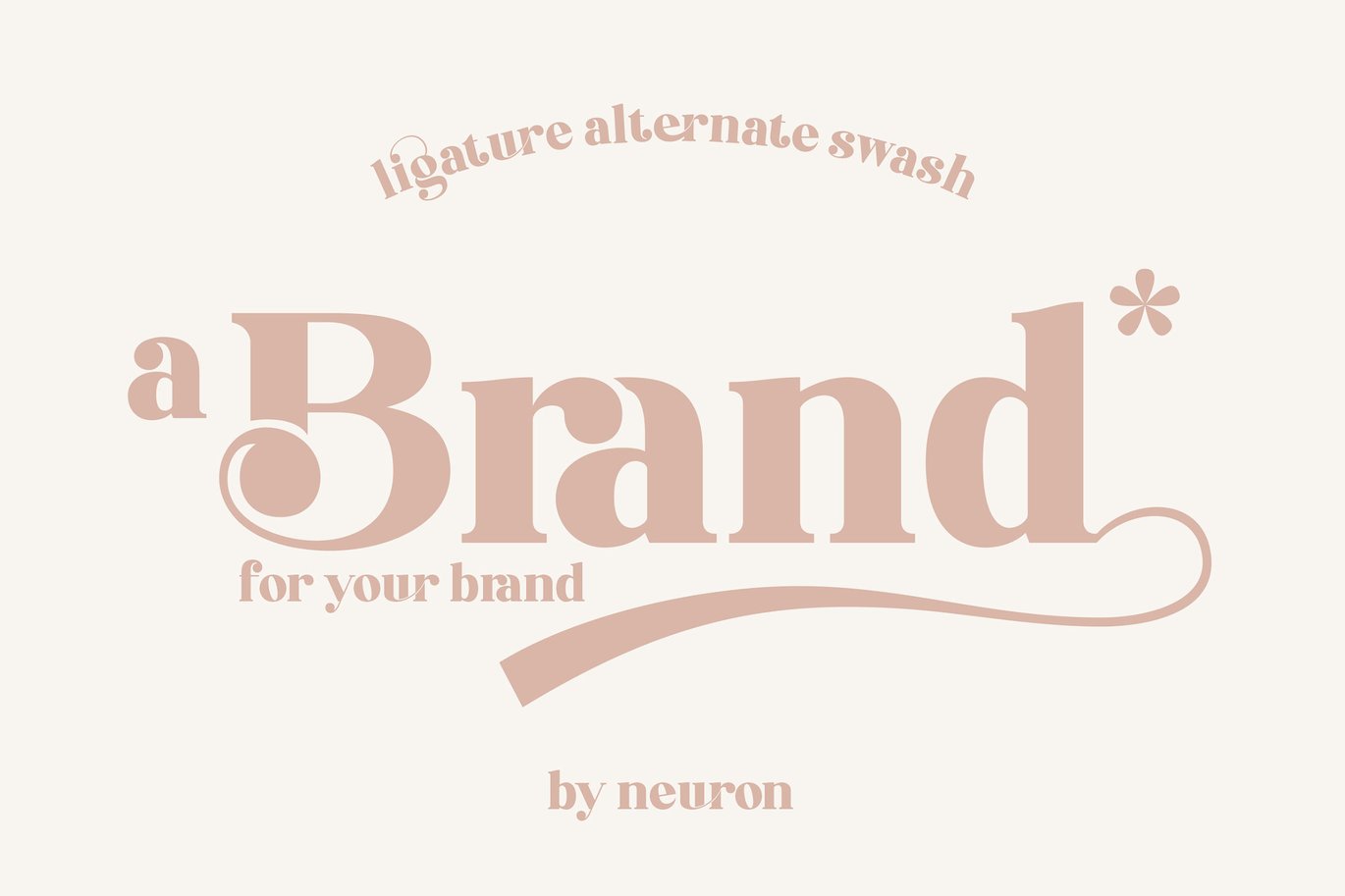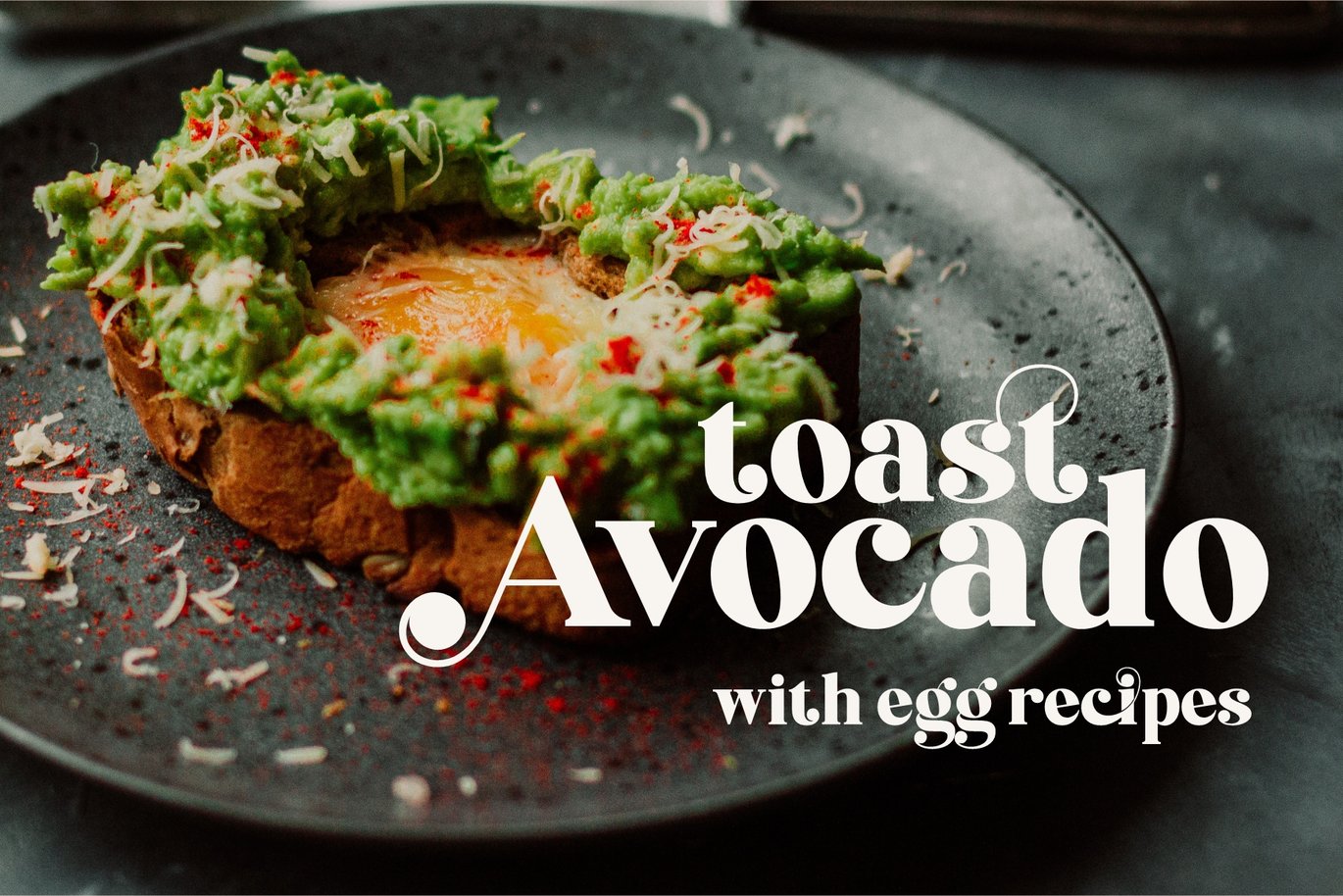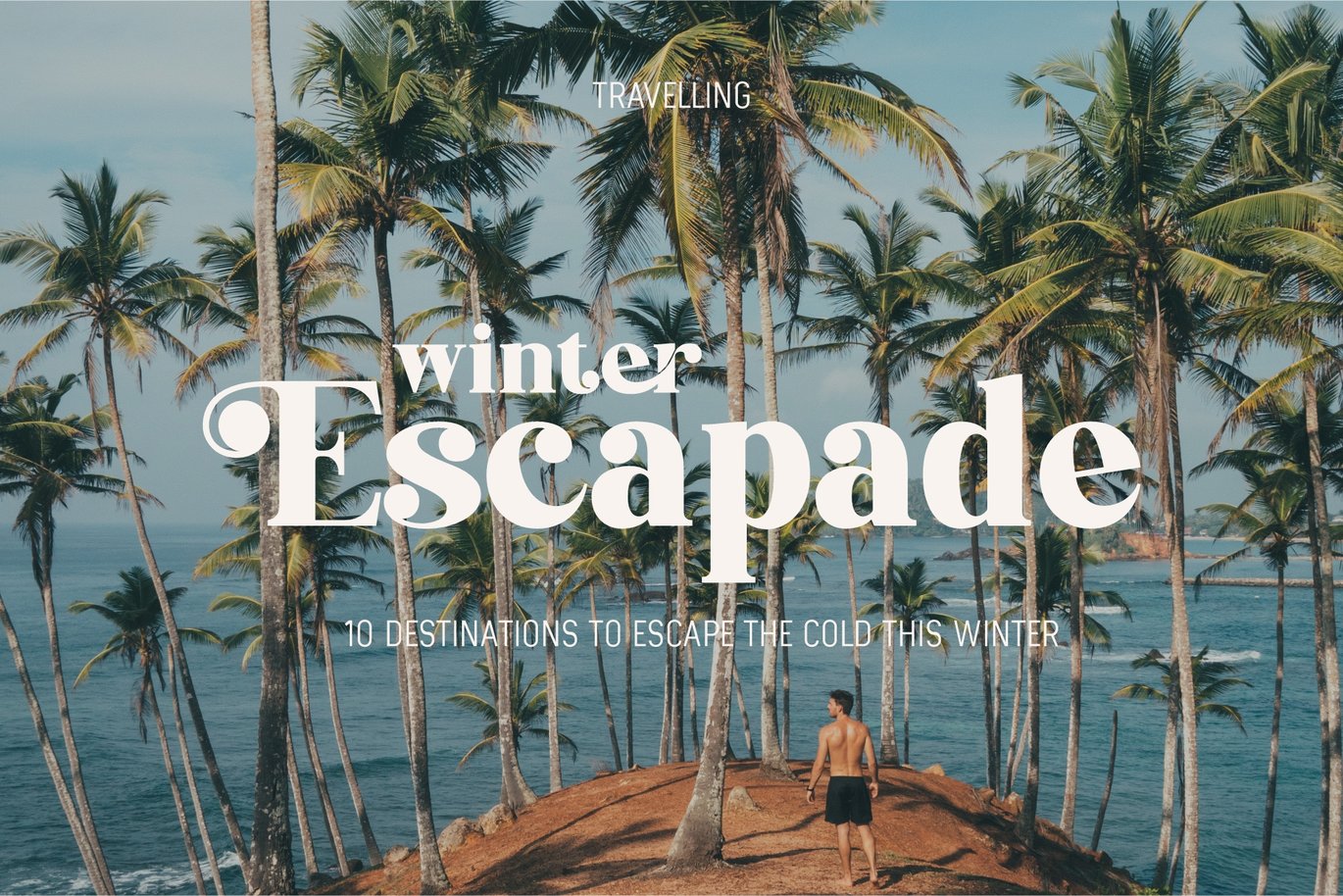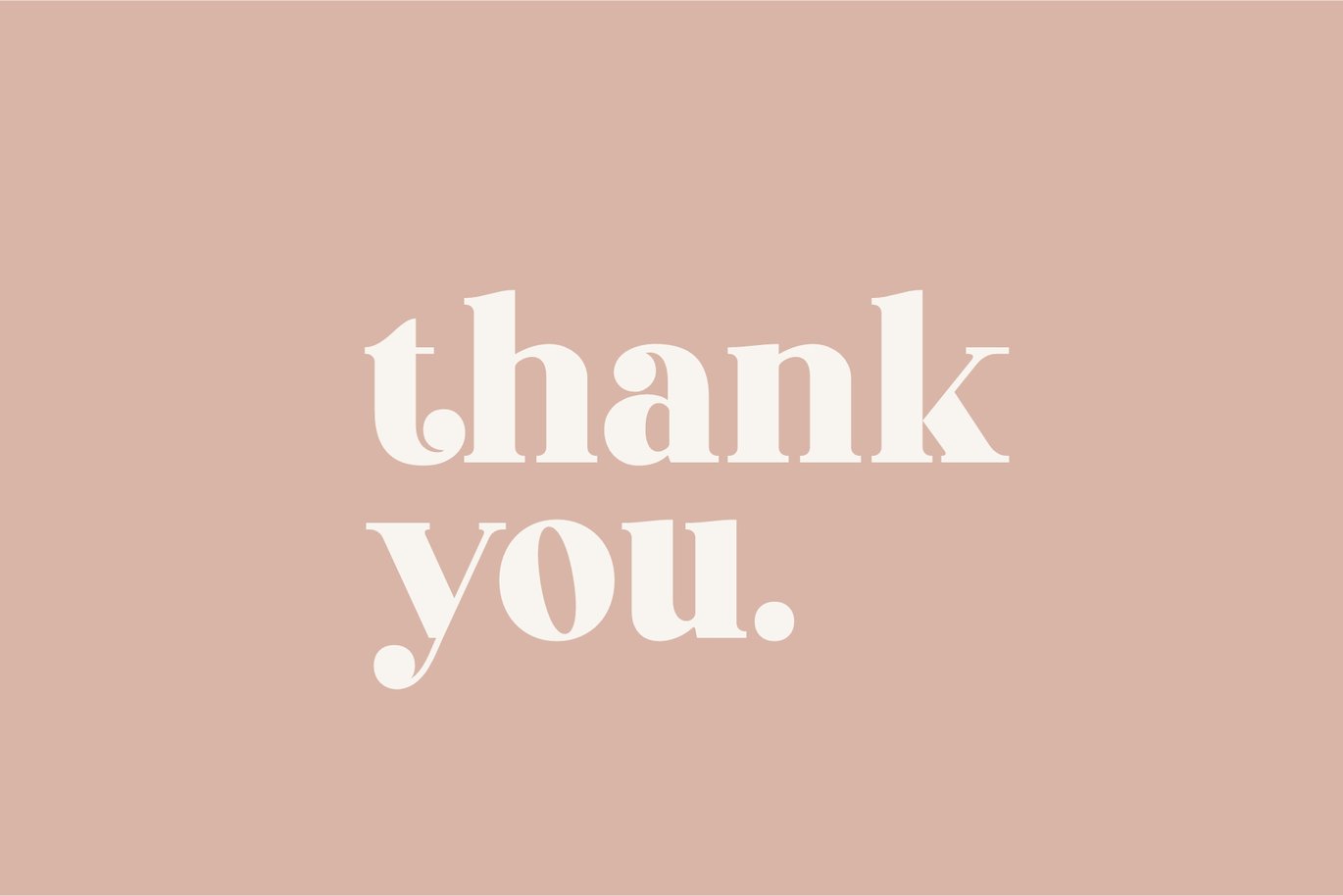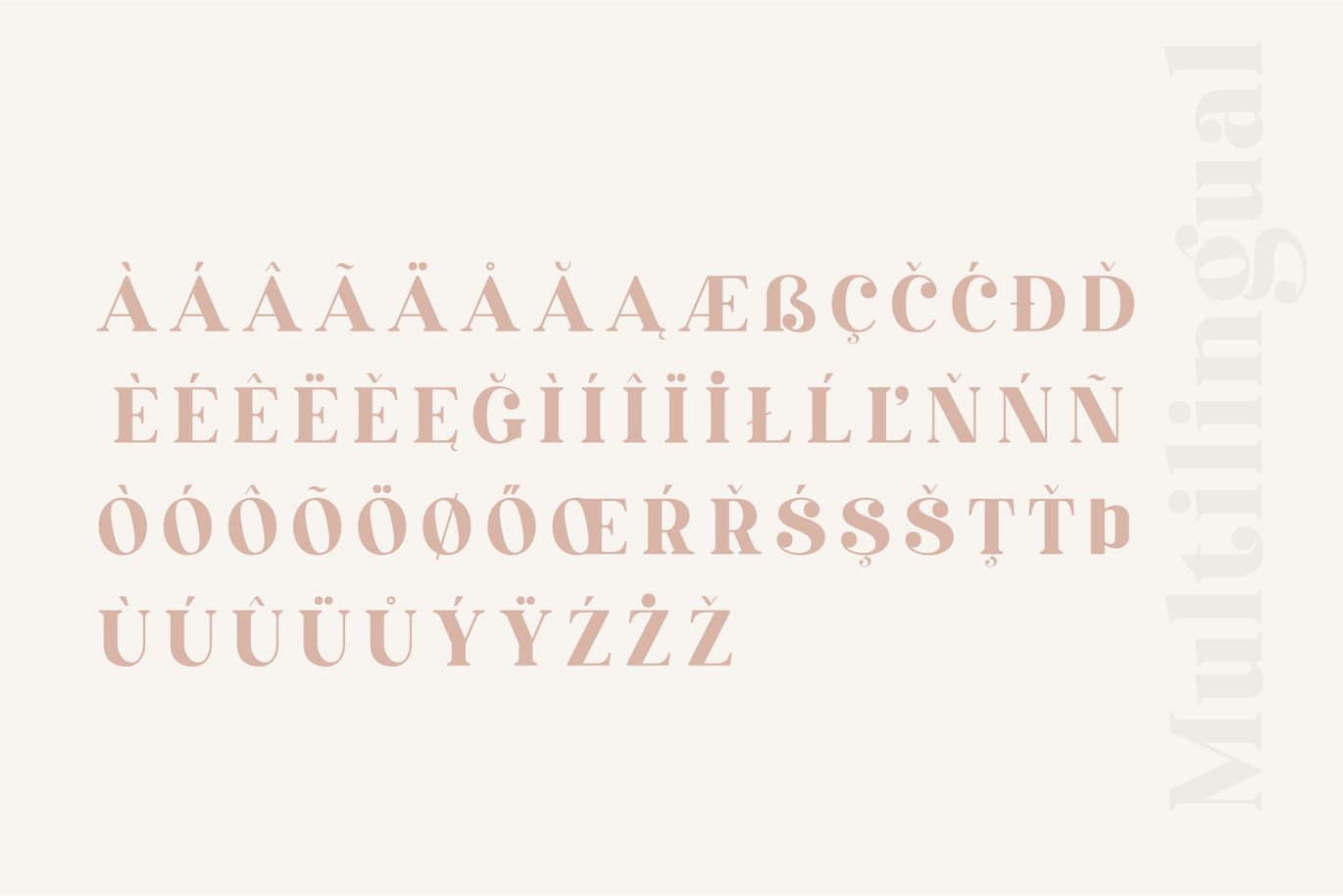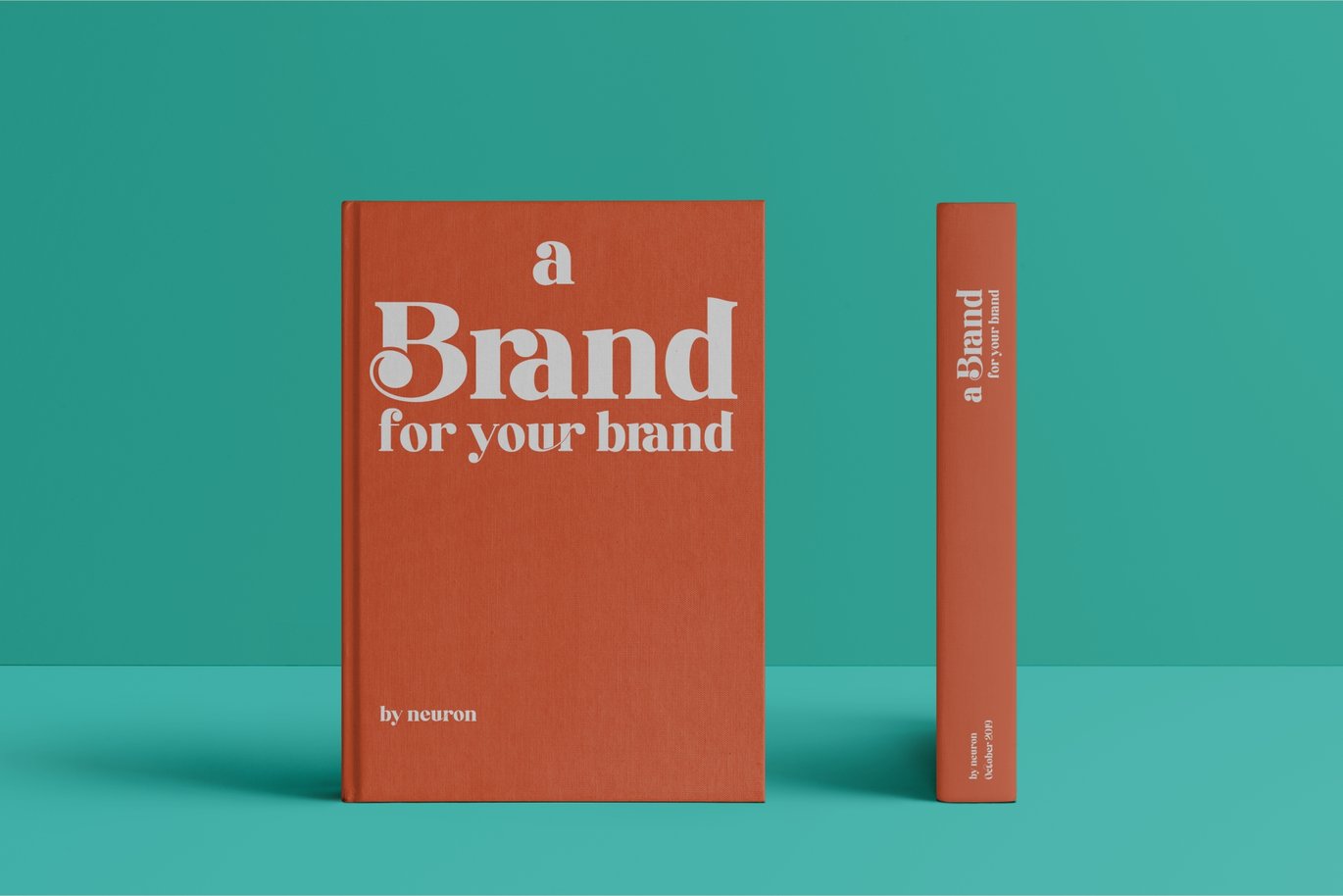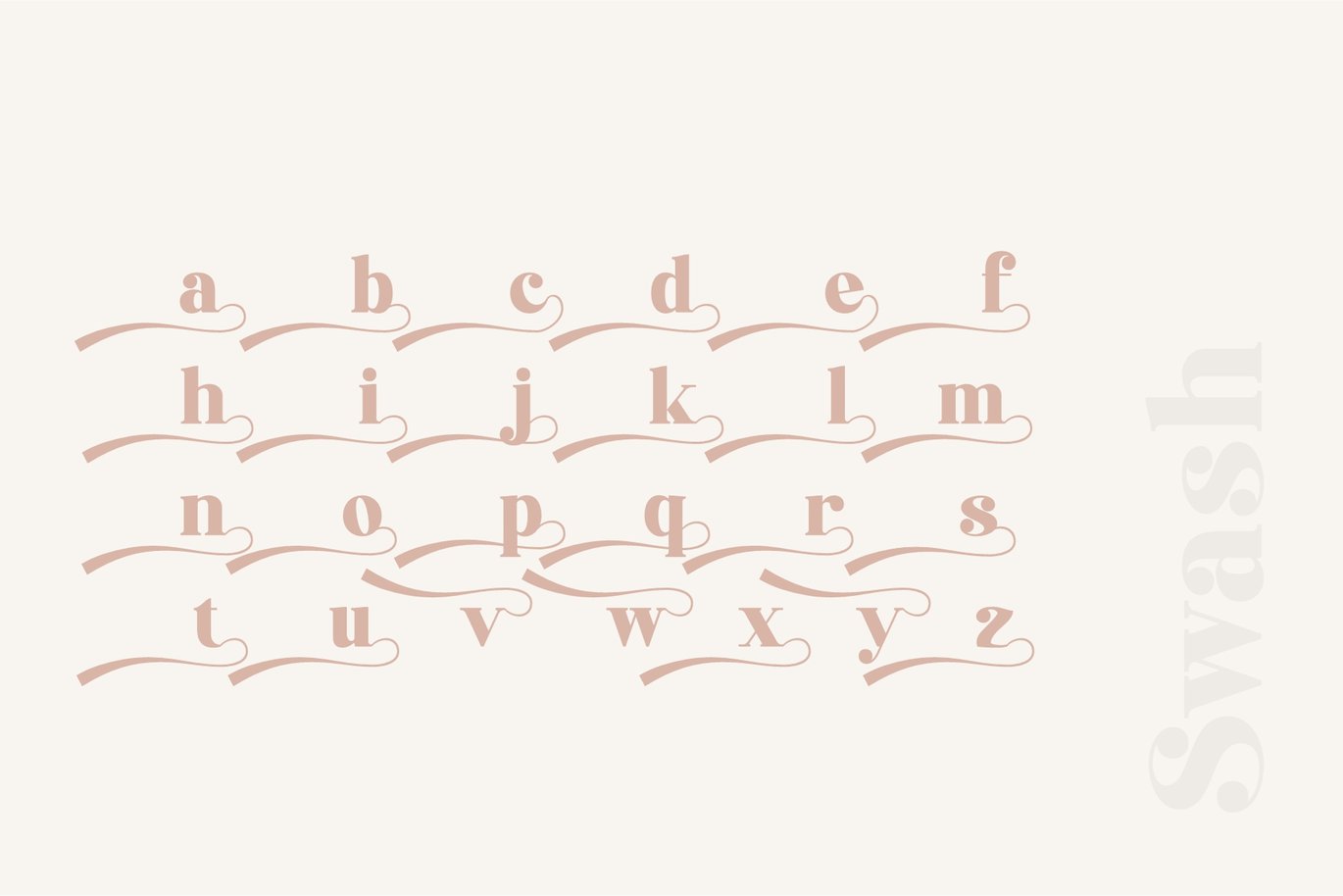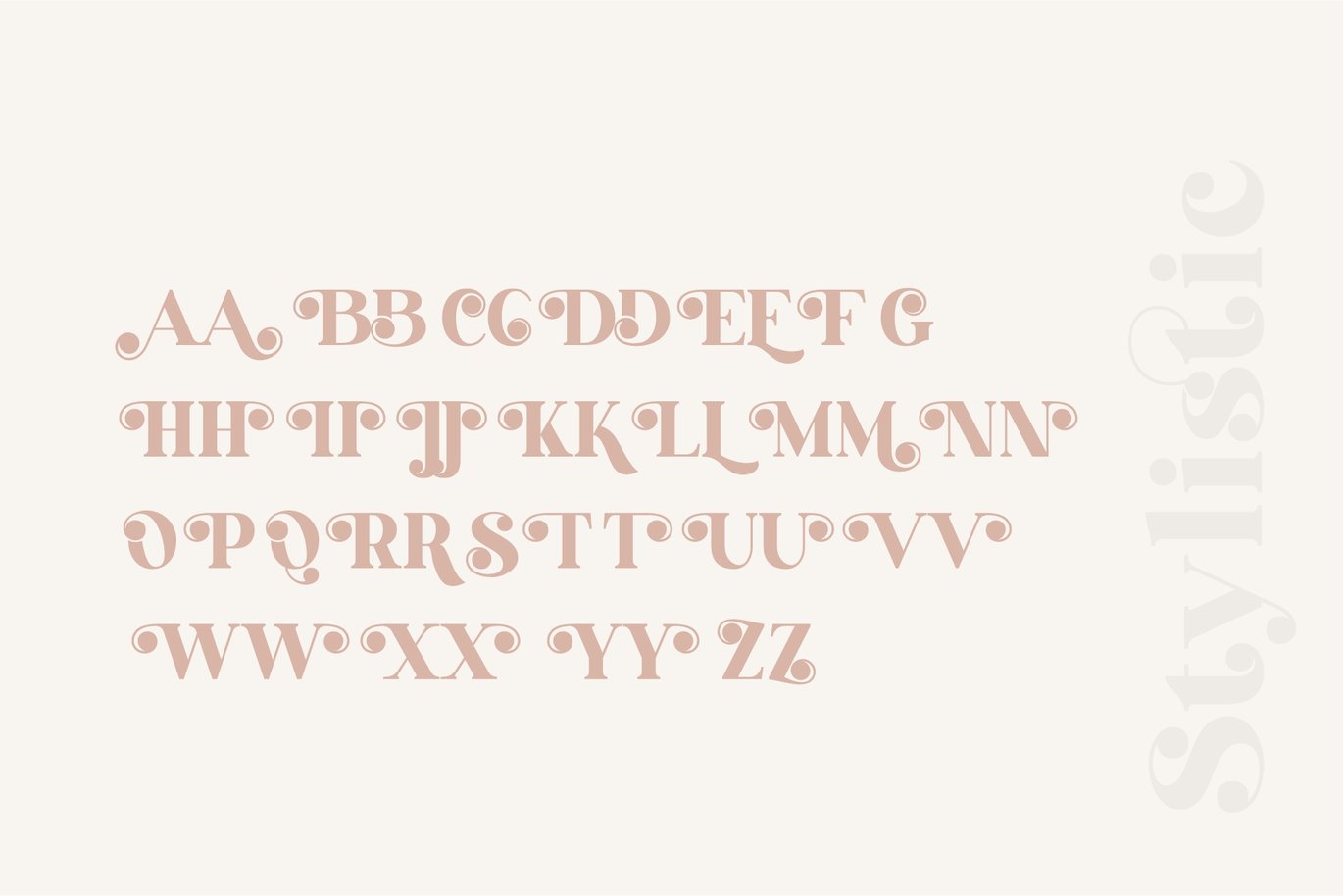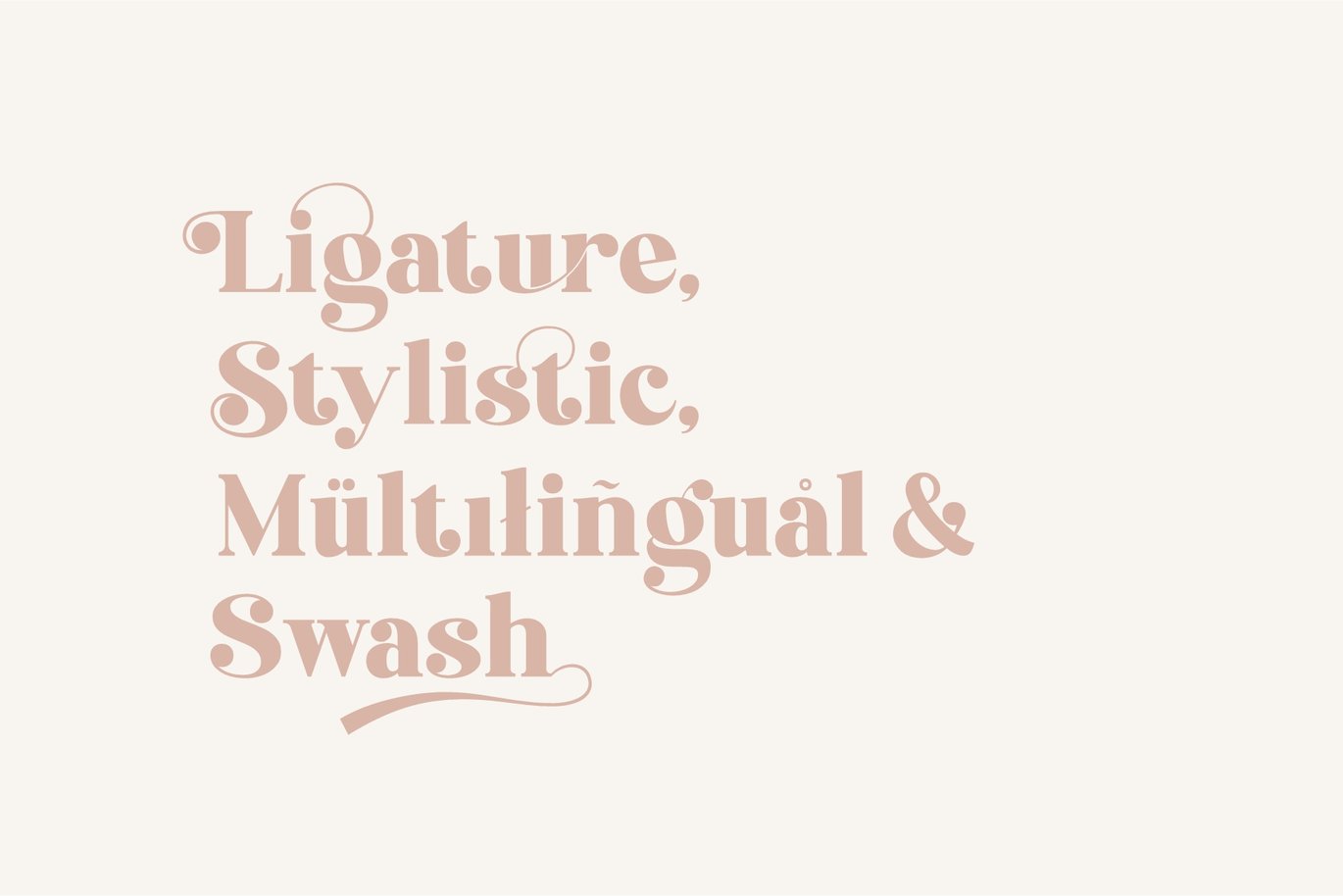
Brand Display Font
A ‘Brand’ for your brand. Brand is bold and chic, with contrast and elegant feel. It is a display font, a playful one. So much option to ignite your project, start from stylistic, swash, and a bunch of ligature.
Language support; Afrikaans, Albanian, Catalan, Croatian, Czech, Danish, Dutch, English, Estonian, Finnish, French, German, Hungarian, Icelandic, Italian, Norwegian, Polish, Portugese, Slovak, Slovenian, Spanish, Swedish, Turkish, Zulu.